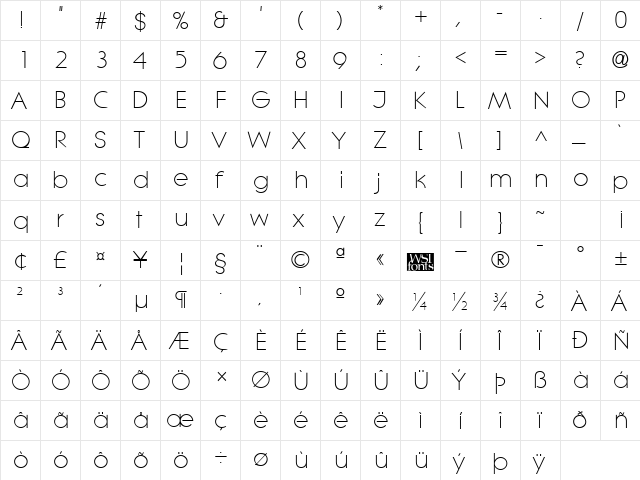
LitheLight Regular
Design Context for LitheLight Typeface
LitheLight offers clean, dependable letterforms without strong stylistic allegiance, making it a practical choice for designers who need flexibility. Its slender proportions lend an understated elegance to any composition.